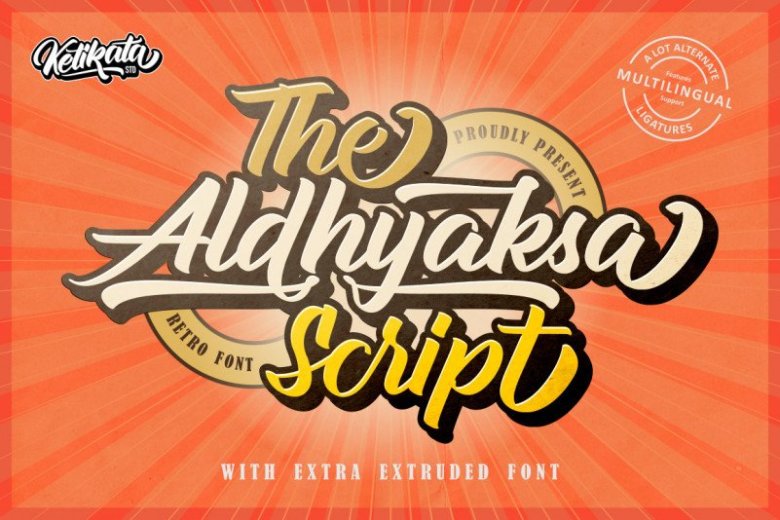
Aldhyaksa Script Font
Hello friend. A new retro bold script, with bold and fun style. Inspired by Retro style and combination with Hand Lettering style. I hope this can make inspire you from your work. Introducing Aldhyaksa Font. It’s a strong and bold script font. carefully crafted with hand lettering. that contains many stylistic alternate and swashes that will help you to create your own customized design. This font has unique and perfect for branding (Logotype) and other design needs, like for merchandise, packaging, business card and many other project. With start and ending swash, and middle swash for some letters, this is very easy to use, just rely on your creativity! This font was impressed cool and elegant.